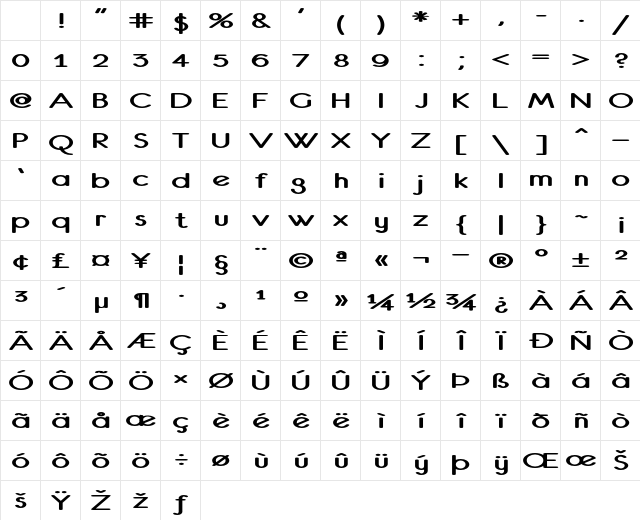
Complete Orenshaw Extra-expanded Bold glyph index. Displaying only characters natively supported by Orenshaw Extra-expanded Bold font.
Orenshaw is a composed and adaptable typeface that performs quietly and consistently across a wide range of design contexts. Its bold stroke weight gives it real presence on the page.